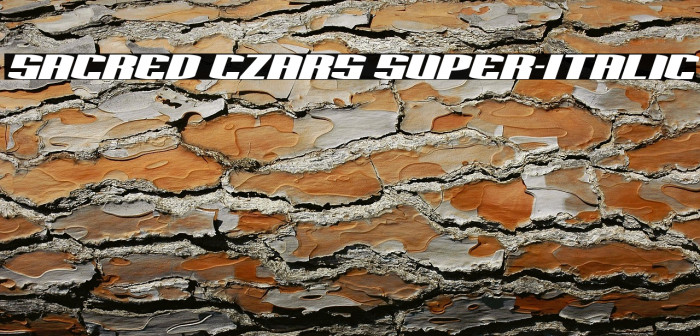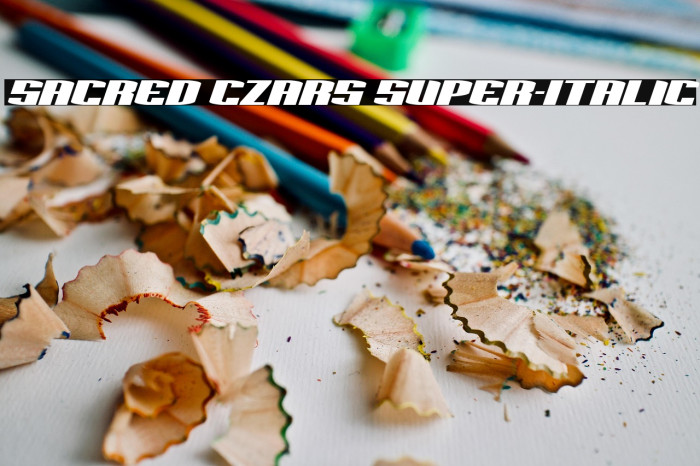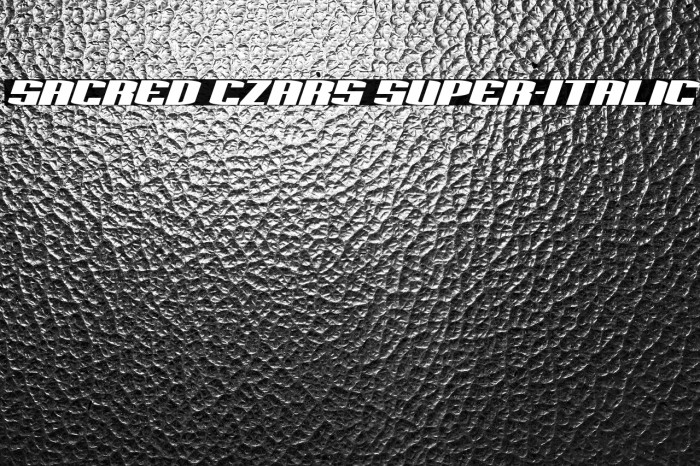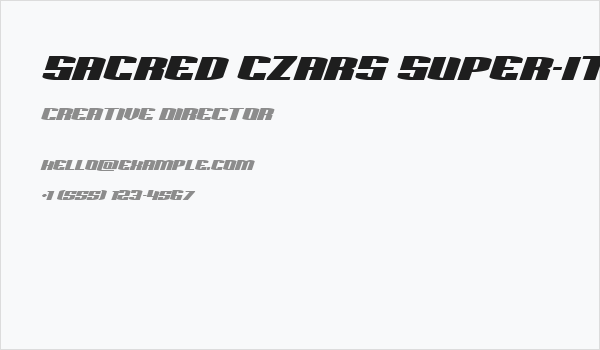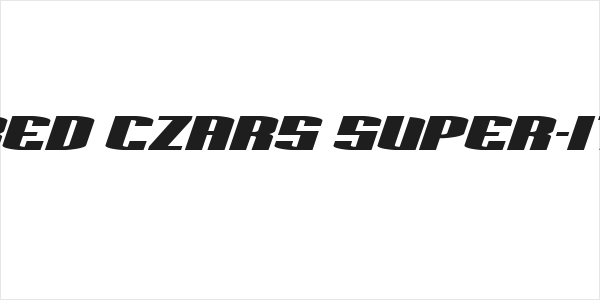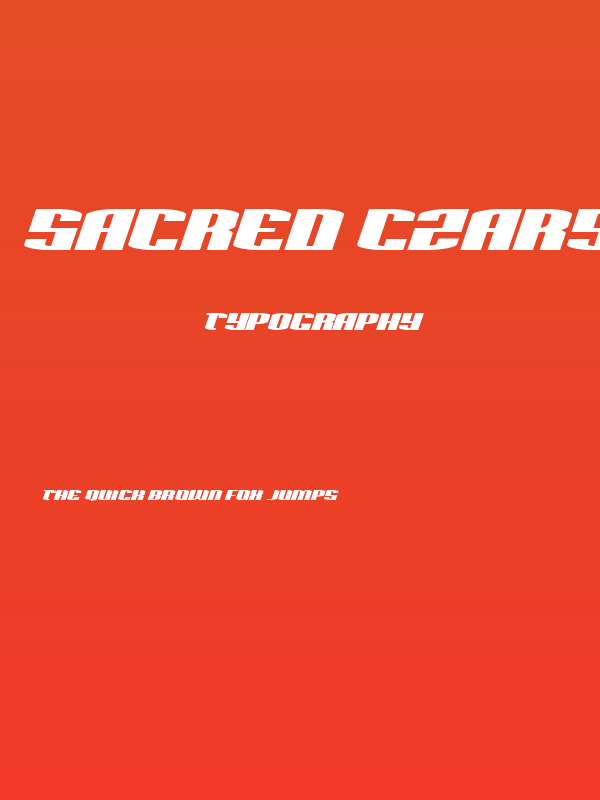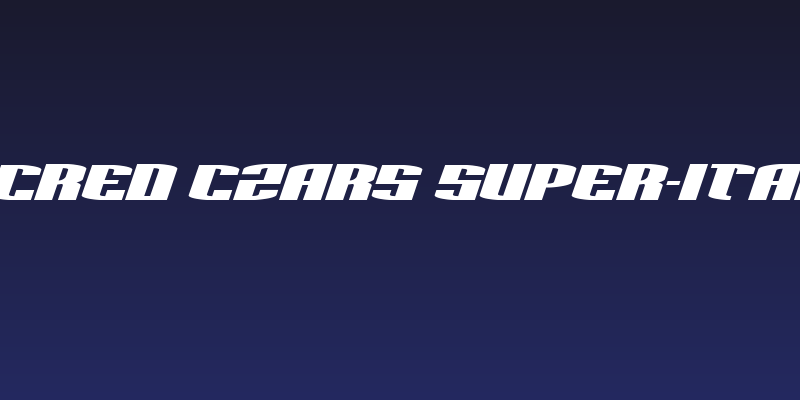
Sacred Czars Super-Italic Font
Sacred Czars Super-Italic Description
This font features a bold and dynamic style with a strong italic slant, giving it a sense of motion and energy. The characters are wide and robust, with sharp angles and a futuristic appearance. The uppercase letters are particularly striking, with a consistent thickness that adds to the boldness of the design. The numbers and special characters maintain the same dynamic style, ensuring a cohesive look across all text elements. This font is ideal for projects that require a modern and impactful aesthetic.
| Proposed Projects | Ideal for sports branding, video game titles, and dynamic poster designs. |